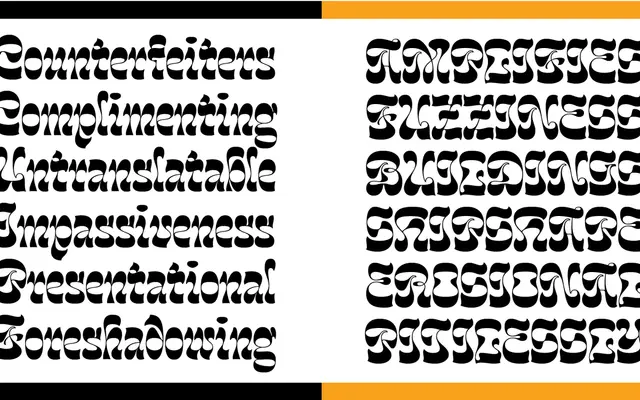
Wanchy
Herzberg Design · 2019
A reverse-contrast display typeface with heavy horizontal strokes and an Art Nouveau-inflected psychedelic character, available as a variable font with an optical sizing axis.
Wanchy uses a pronounced reverse (horizontal) contrast, with thick tops and bottoms and thin vertical stems, producing a psychedelic effect that draws on Art Nouveau without directly imitating period revivals. It ships as a variable font with an optical sizing axis, alongside five fixed presets, allowing use across a range of display sizes whilst keeping thin stroke widths consistent. The glyph set includes Latin Plus language support, discretionary ligatures, contextual alternates and 52 code-activated dingbats including arrows, flowers and emojis.
A display typeface with heavy horizontal (reverse) contrast and Art Nouveau influence, producing a psychedelic character without directly imitating 1960s–70s typefaces. Its unconventional letterforms and thick horizontal strokes place it firmly in the display category.